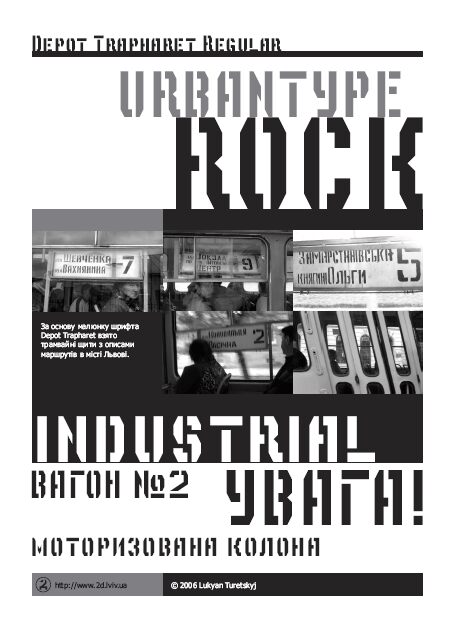
DepotTrapharet by Lukyan Turetskyj is a free industrial stencil display font with a stark, machine-cut profile. Tall, narrow letters use straight bars, clipped corners, and sharp gaps that split the strokes into parts. Changing stroke widths keep the forms raw and mechanical.
A transport or workwear brand could use it to evoke fabricated signs and coded equipment markings. Its angular forms also suit music posters and game graphics with an industrial or dystopian setting. Alongside diagrams, hazard stripes, or mechanical illustration, the broken letters can become part of the machinery itself.
For example, the font Lvivs Tram Depot.